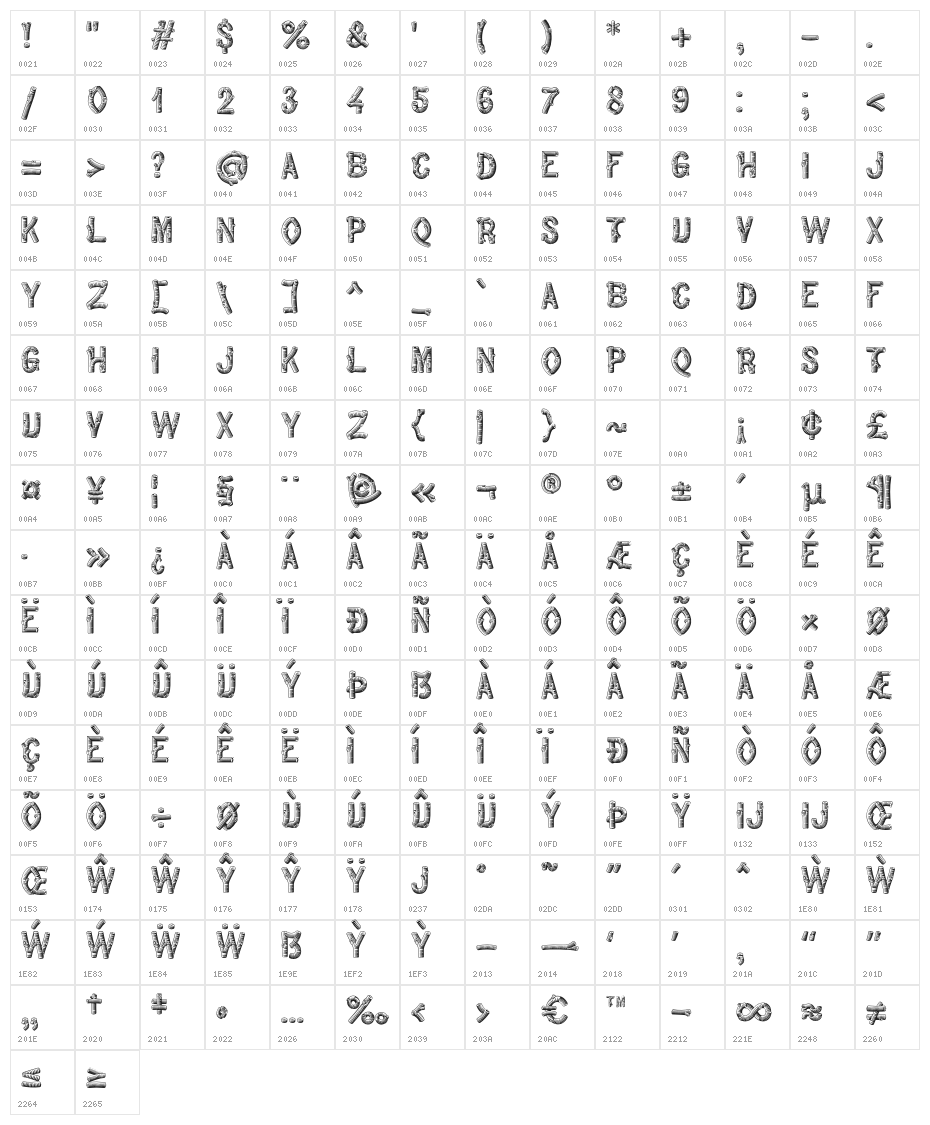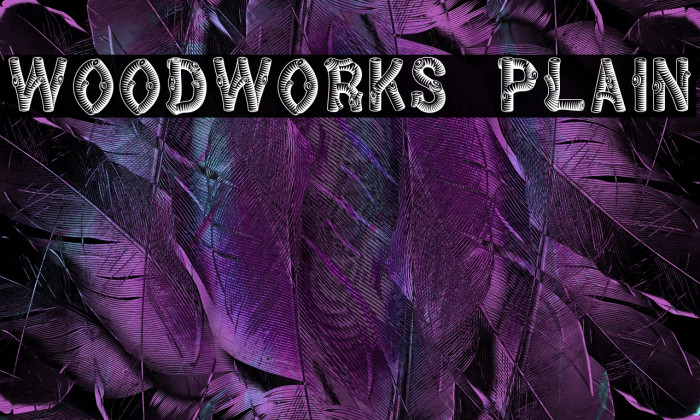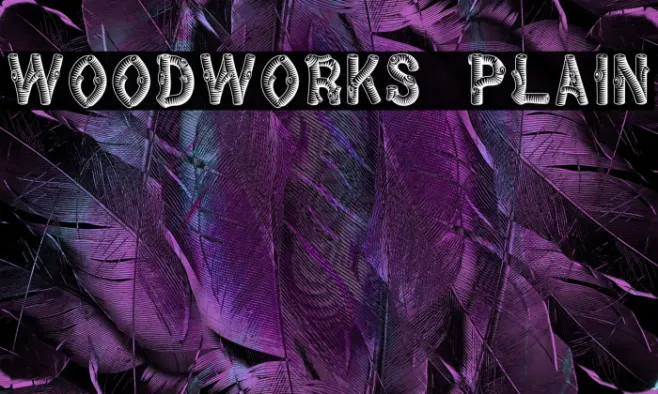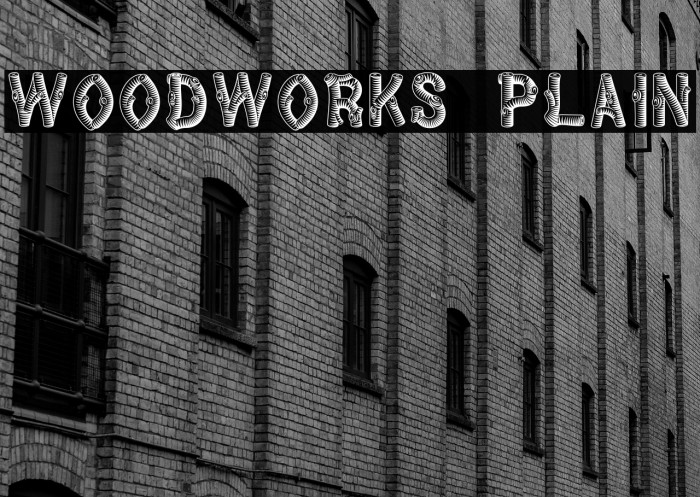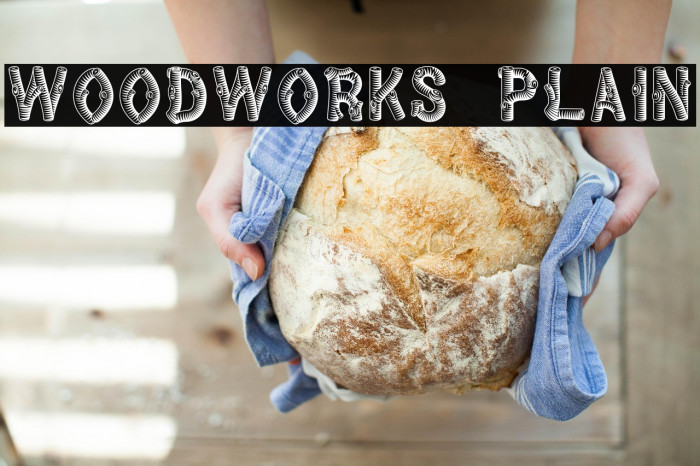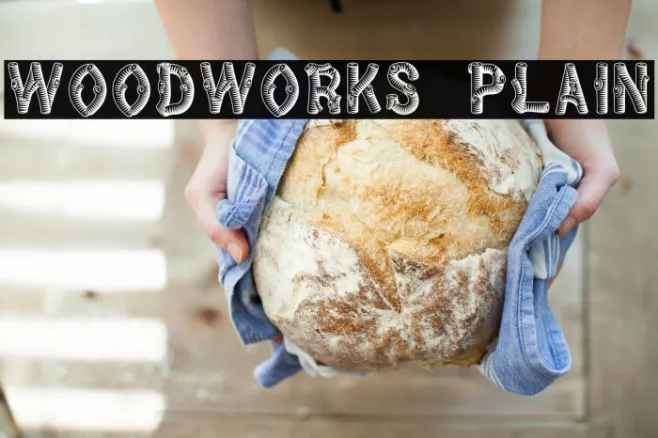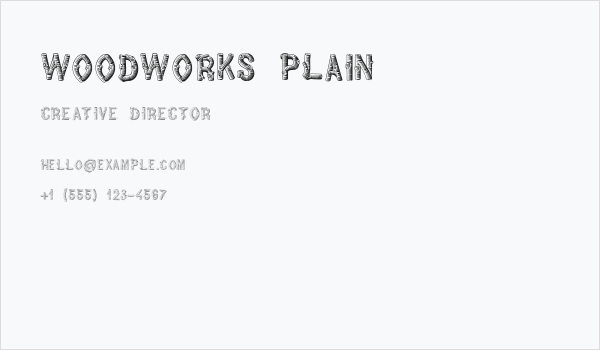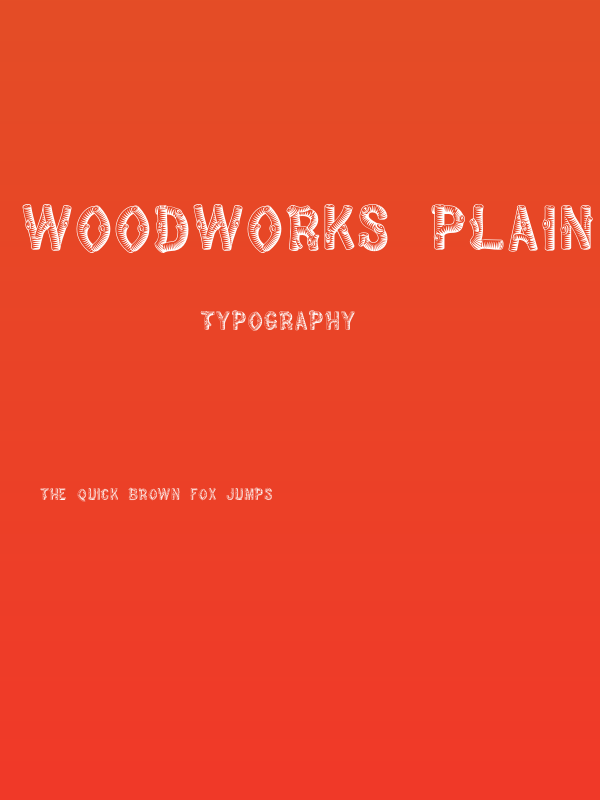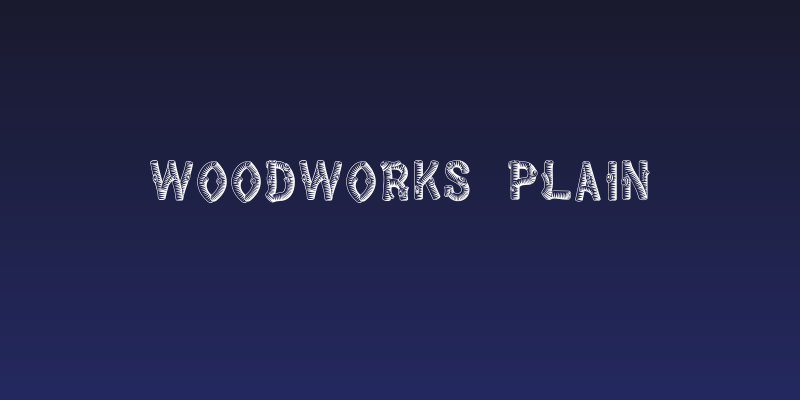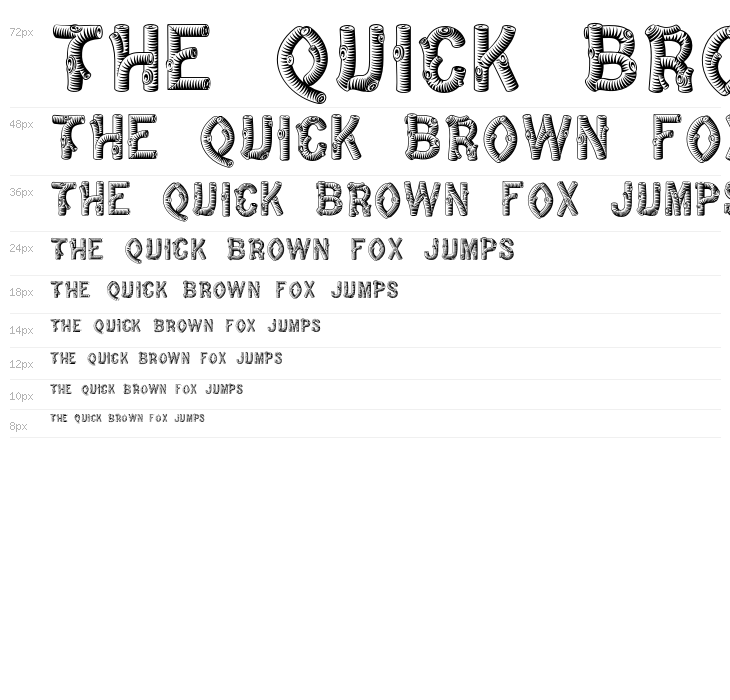
WoodWorks Plain Font
WoodWorks Plain Description
This font features a unique, decorative style with a hand-drawn appearance. Each character is designed with intricate line work that mimics the texture of wood grain, giving it a rustic and organic feel. The letters are bold and rounded, with a playful and whimsical touch that makes them stand out. The font includes both uppercase and lowercase letters, numbers, and a variety of special characters, all maintaining the same detailed aesthetic. Its distinctiveness makes it ideal for projects that require a touch of creativity and individuality.
| Use Case | Logos, Posters, Invitations |
| Proposed Projects | Ideal for branding, posters, invitations, and any project needing a rustic, creative touch. |